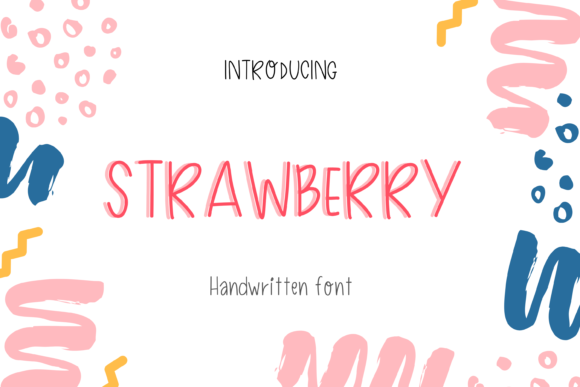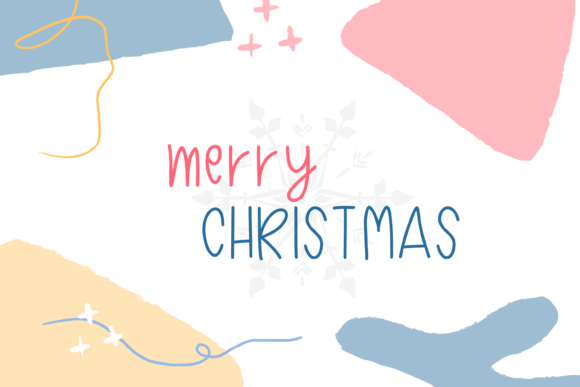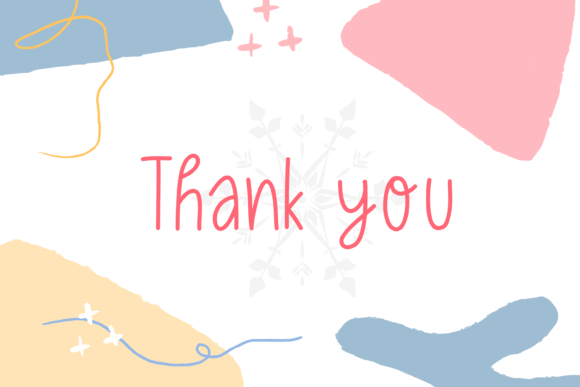
Strawberry Font
About Strawberry Font
Strawberry is a cute and trendy handwritten font. Whether you’re looking for fonts for Instagram or calligraphy scripts for DIY projects, this font will be a perfect choice!